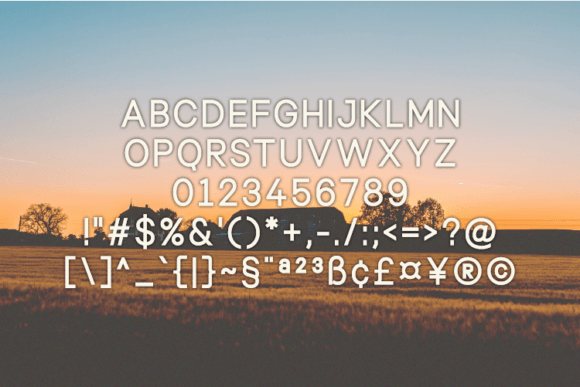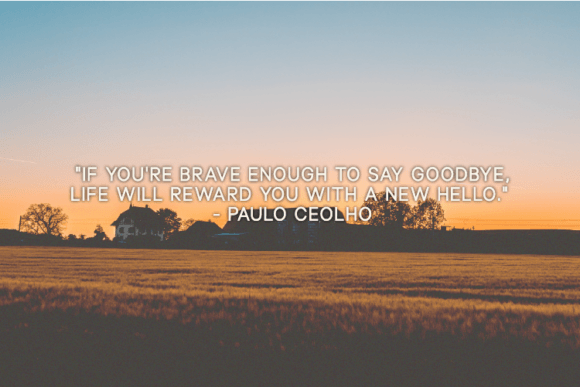
Discover the Charm of Farmhouse Font: Elevate Your Designs with this Stunning Sans Serif Font
Are you a designer or crafter looking for a font that can add a touch of rustic charm to your projects? Look no further than the Farmhouse Font! This beautiful sans serif font is perfect for creating stunning headings, gorgeous invitations, and logos that will make your work stand out. In this article, we’ll dive into the world of Farmhouse Font and explore its features, uses, and benefits.
Farmhouse Font is a modern sans serif font that is designed to bring a sense of rustic elegance to your designs. Its clean lines, simple shapes, and classic feel make it perfect for a wide range of projects, from wedding invitations and save-the-dates to logos, headers, and displays.
- Stunning sans serif design: Farmhouse Font features a beautiful sans serif design that is both modern and timeless.
- Highly versatile: This font is perfect for a wide range of projects, including headings, invitations, logos, and more.
- Easy to read: The clean lines and simple shapes of Farmhouse Font make it easy to read, even at small sizes.
- Perfect for displays and headers: Farmhouse Font is ideal for creating stunning displays and headers that will grab attention.
Uses of Farmhouse Font
Farmhouse Font is a versatile font that can be used for a wide range of projects, including:
- Wedding invitations and save-the-dates: Create beautiful and elegant wedding invitations and save-the-dates with Farmhouse Font.
- Logos and branding: Use Farmhouse Font to create stunning logos and branding materials that will help your business stand out.
- Headings and displays: Farmhouse Font is perfect for creating eye-catching headings and displays for websites, social media, and more.
- Invitations and announcements: Use Farmhouse Font to create gorgeous invitations and announcements for special occasions.
Benefits of Using Farmhouse Font
So why choose Farmhouse Font for your designs? Here are just a few benefits:
- Adds a touch of rustic charm: Farmhouse Font brings a sense of rustic elegance to your designs, making them perfect for country-themed projects.
- Highly legible: The clean lines and simple shapes of Farmhouse Font make it easy to read, even at small sizes.
- Versatile: Farmhouse Font can be used for a wide range of projects, making it a great addition to any designer’s toolkit.
Here are a few tips for getting the most out of Farmhouse Font:
- Use it for headings and titles: Farmhouse Font is perfect for creating eye-catching headings and titles.
- Experiment with different sizes and colors: Try out different sizes and colors to see what works best for your project.
- Pair it with other fonts: Farmhouse Font pairs well with other fonts, so don’t be afraid to experiment with different combinations.
Farmhouse Font is a stunning sans serif font that is perfect for designers and crafters looking to add a touch of rustic charm to their projects. With its clean lines, simple shapes, and classic feel, it’s ideal for a wide range of projects, from wedding invitations and save-the-dates to logos, headers, and displays. Whether you’re a seasoned designer or just starting out, Farmhouse Font is a great addition to any toolkit.